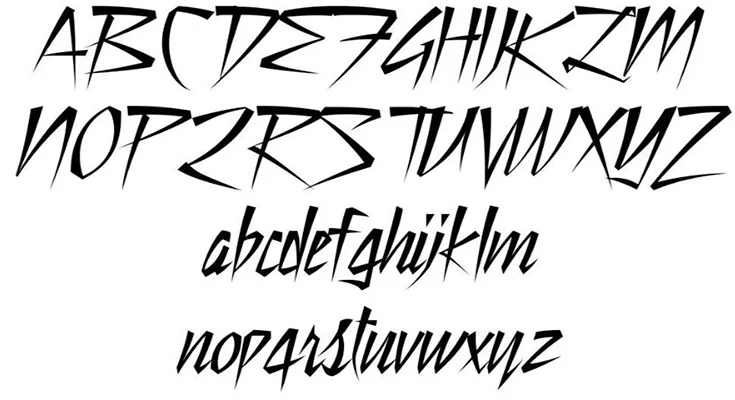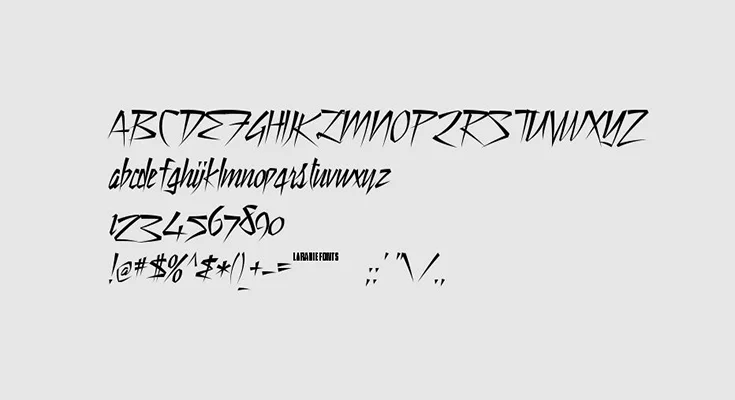
Introducing Purple Rain Font! It is a 1984 American rock musical drama film scored by and starring Prince in his acting debut.
It is the sixth studio album released by musician and pop culture icon Prince. The album topped the Billboard charts for six months and stayed there for a long time.
Purple Rain is consistently ranked on the list of best-selling albums worldwide. It also earned Prince Grammy Awards for various categories.
The name of the font that is used in the Purple Rain movie and album logo is a typeface by name of Still Time that was designed and shared by Ray Larabie.
Font Name:Purple Rain Font Family
Style:Fancy, Logo, Display
Font Designer:Ray Larabie
Its fluid lines cascade like a gentle drizzle, while the bold curves command a powerful presence. The rich hue dances between regal purple and deep indigo, evoking a sense of mystery and intrigue. From digital displays to printed materials, this font adapts seamlessly, adding a touch of lavishness to your work.
Due to its unique texture, you can create covers, movie posters, articles, brochure layouts, logo designs, banners, printing on cards, product designs, and product packaging, as well as many other awesome places.
Whether crafting invitations for a royal-themed event or designing a logo that exudes sophistication, Purple Rain Font offers a unique blend of charm and professionalism.